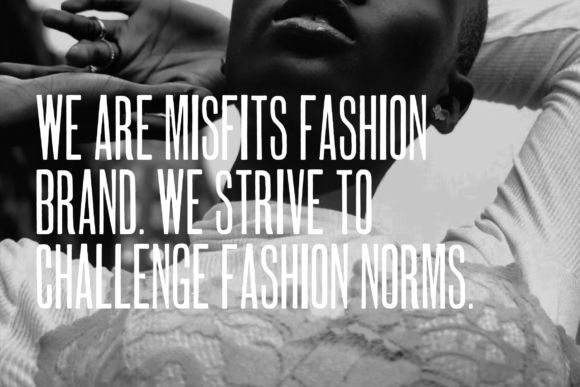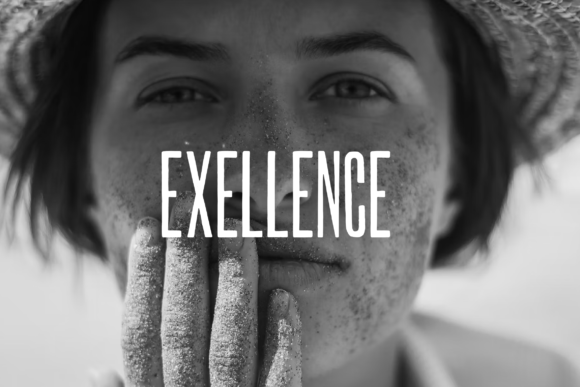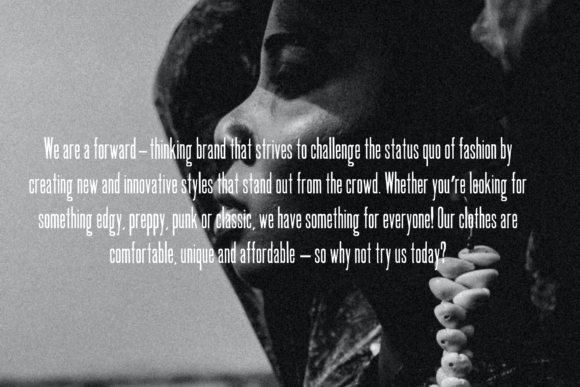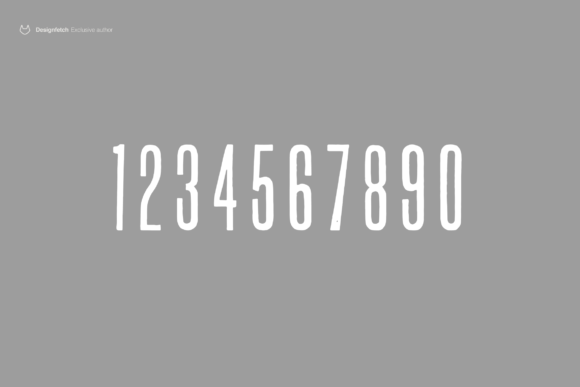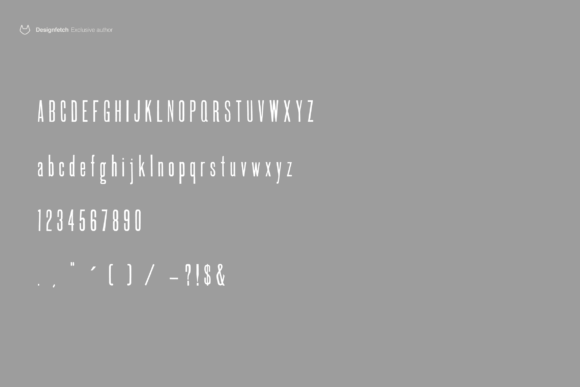
About Misfits Font
“Misfits” is a distinctive fashion typeface designed for those who consider themselves fashion misfits. This font establishes a robust connection with each letter, showcasing style and quality. More than just a collection of letters, “Misfits” embodies the essence of fashion, highlighting elegance and sophistication with grace. It provides a platform for individuals to express themselves uniquely through their fashion choices.
The strong connection between each letter in “Misfits” contributes to its unique and cohesive design. This connection reflects a sense of unity and coherence, mirroring the idea that fashion is more than just individual pieces of clothingβit’s about creating a harmonious and stylish ensemble.
Fashion, as depicted by “Misfits,” transcends mere garments; it becomes a form of self-expression. The font is designed to convey a level of elegance and sophistication, allowing individuals to communicate their unique style with grace. Whether you’re bold, eclectic, or experimental in your fashion choices, “Misfits” provides a versatile canvas for self-expression.
Carefully crafted, the “Misfits” typeface speaks volumes about your fashion sense and style. It goes beyond mere letters and becomes a tool for individuals to choose the right words with which they can express themselves in the best way possible. The font’s thoughtful design ensures that it resonates with those who seek to stand out and embrace their unique fashion identity.
In summary, “Misfits” is not just a typeface; it’s a statement about individuality and style. With its strong connection between letters, emphasis on elegance and sophistication, and a focus on self-expression, “Misfits” becomes a powerful tool for those who consider themselves fashion misfits, providing a means to communicate their unique style with confidence and grace.